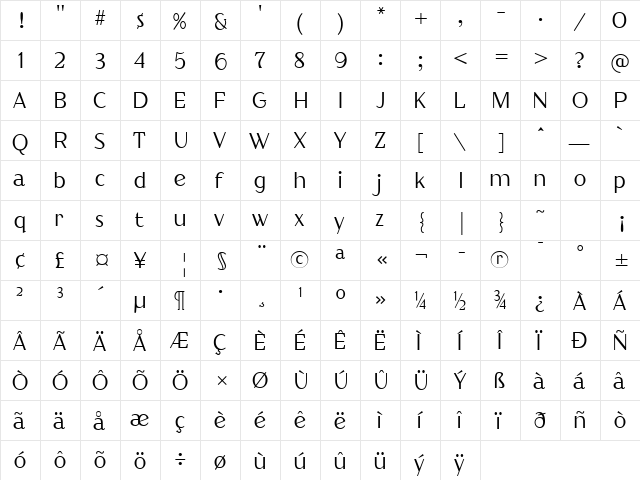
QualetteeMedium Regular
Design Context for QualetteeMedium Typeface
QualetteeMedium offers clean, dependable letterforms without strong stylistic allegiance, making it a practical choice for designers who need flexibility.